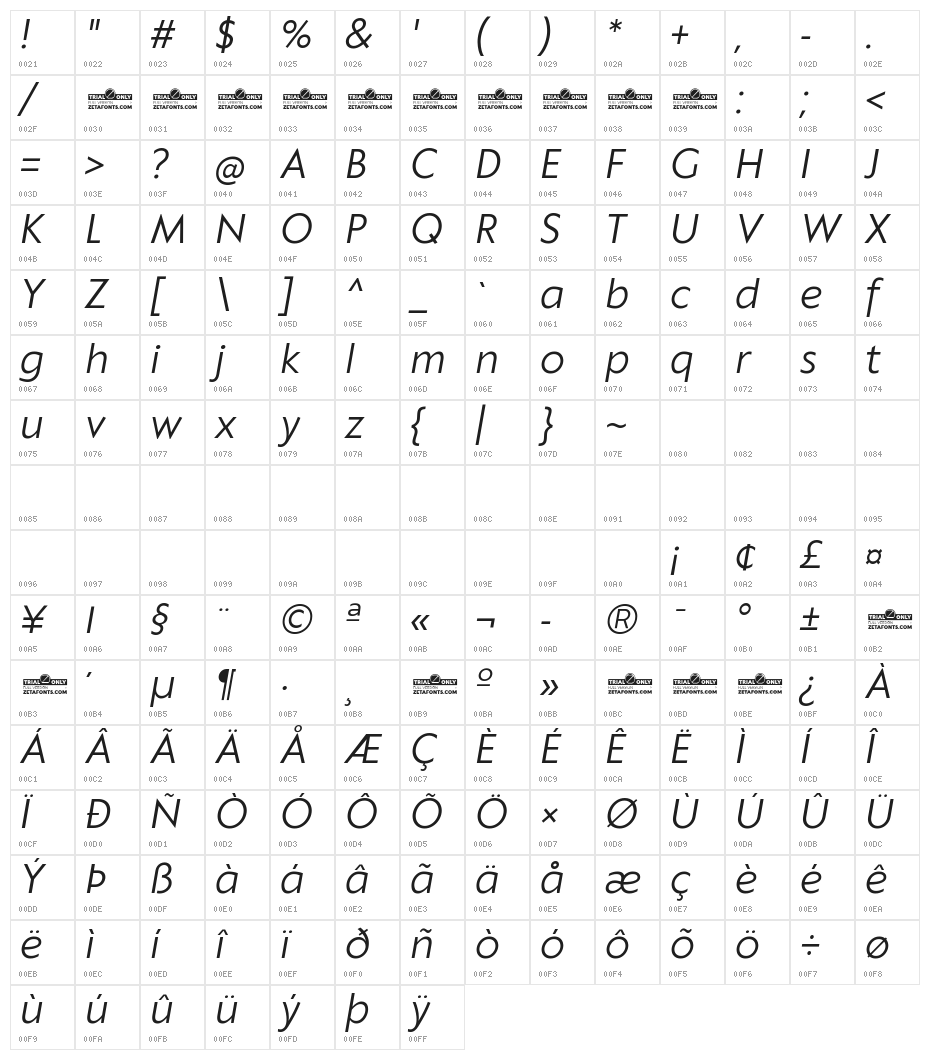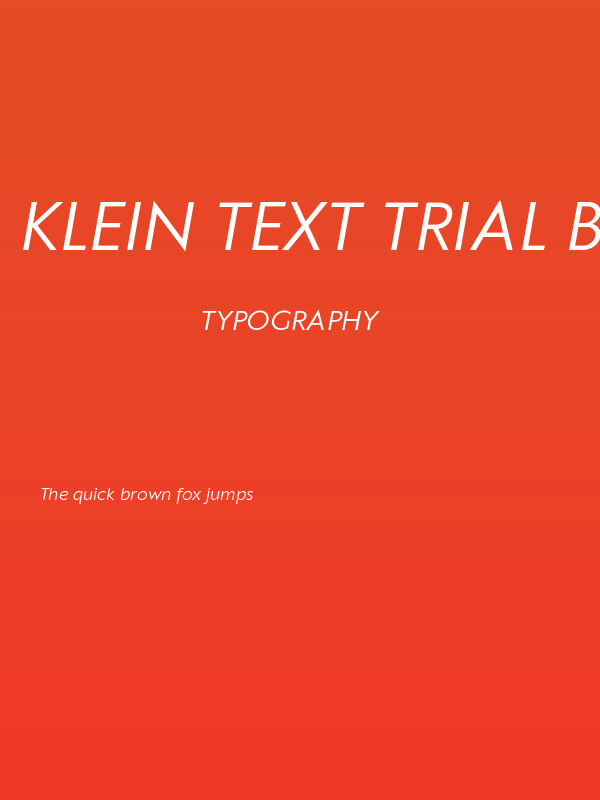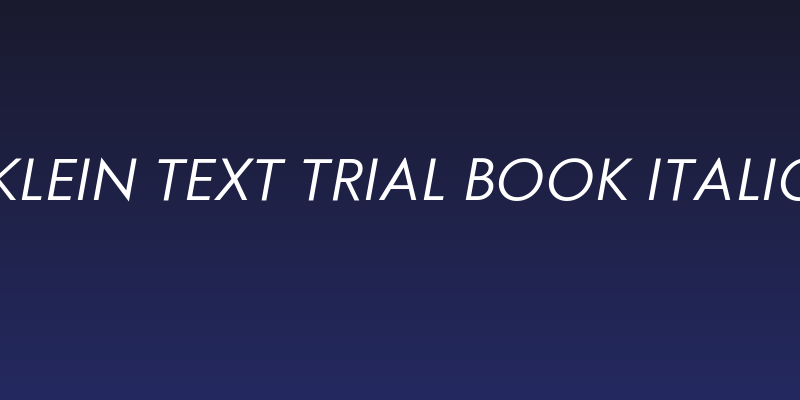
Klein Text Trial Book Italic Font
Klein Text Trial Book Italic Description
This font features a clean and modern design with a slight italic slant, giving it a dynamic and elegant appearance. The characters are well-proportioned with smooth curves and sharp edges, providing a sense of sophistication and readability. The uppercase letters maintain a consistent height, while the lowercase letters offer a harmonious balance with their rounded forms. The numerals are clear and distinct, making them suitable for various applications. Special characters are included, enhancing the font's versatility. Overall, this typeface exudes a professional and contemporary feel, ideal for a wide range of design projects.
| Proposed Projects | Ideal for branding, editorial design, websites, and corporate materials. |